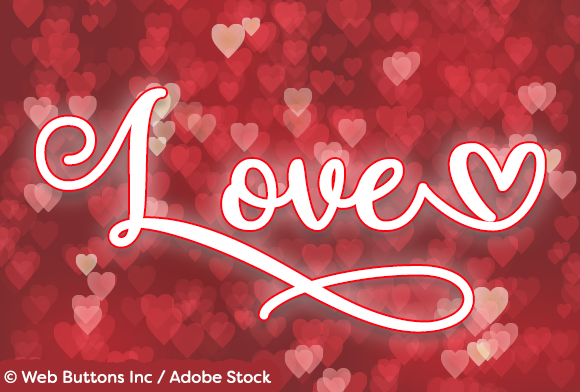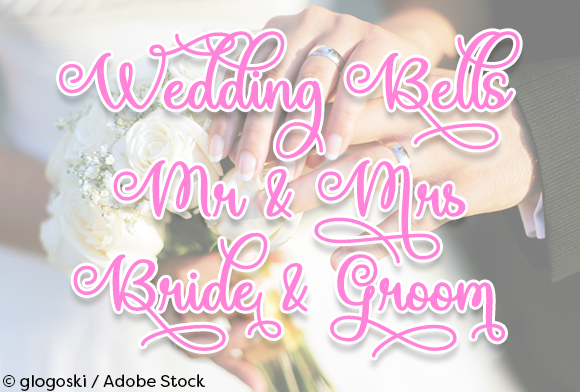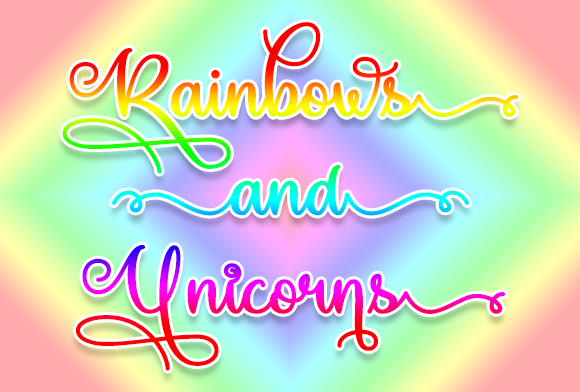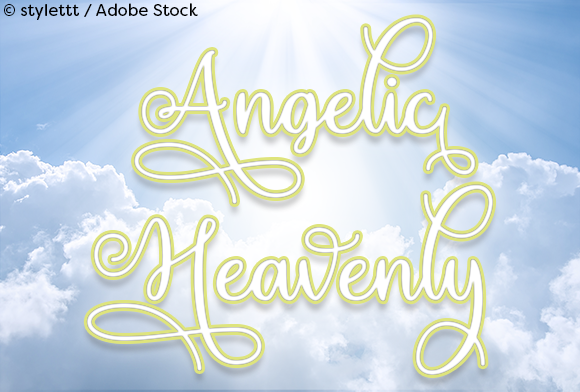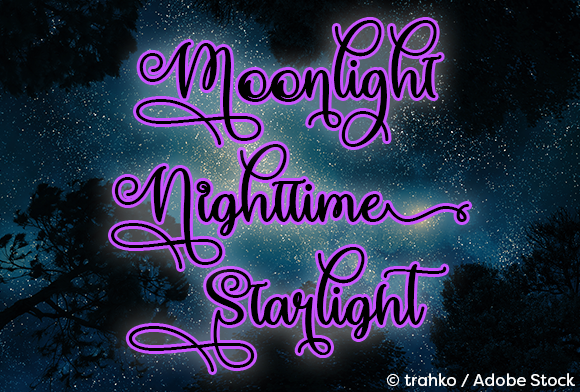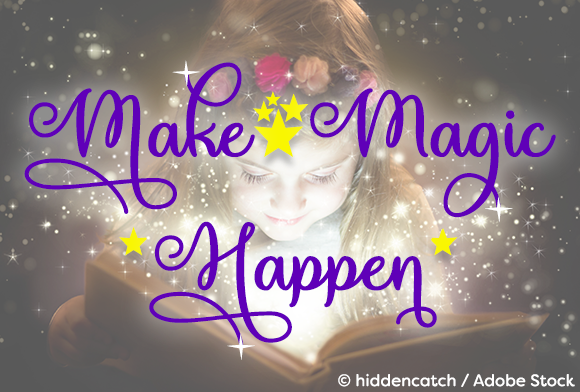
About Make Magic Happen Font
Make Magic Happen is a stylish, calligraphy font that will add a touch a magic to your projects!
SPECIAL SYMBOLS
Type _ (underscore) for the star cluster
Type * (asterisk) for the star
Type [] (brackets) for the the swirls
Type ^ (caret) for the sparkle
Type {} (swirly brackets) for the swirls
Type () (parentheses) for the heart swirls